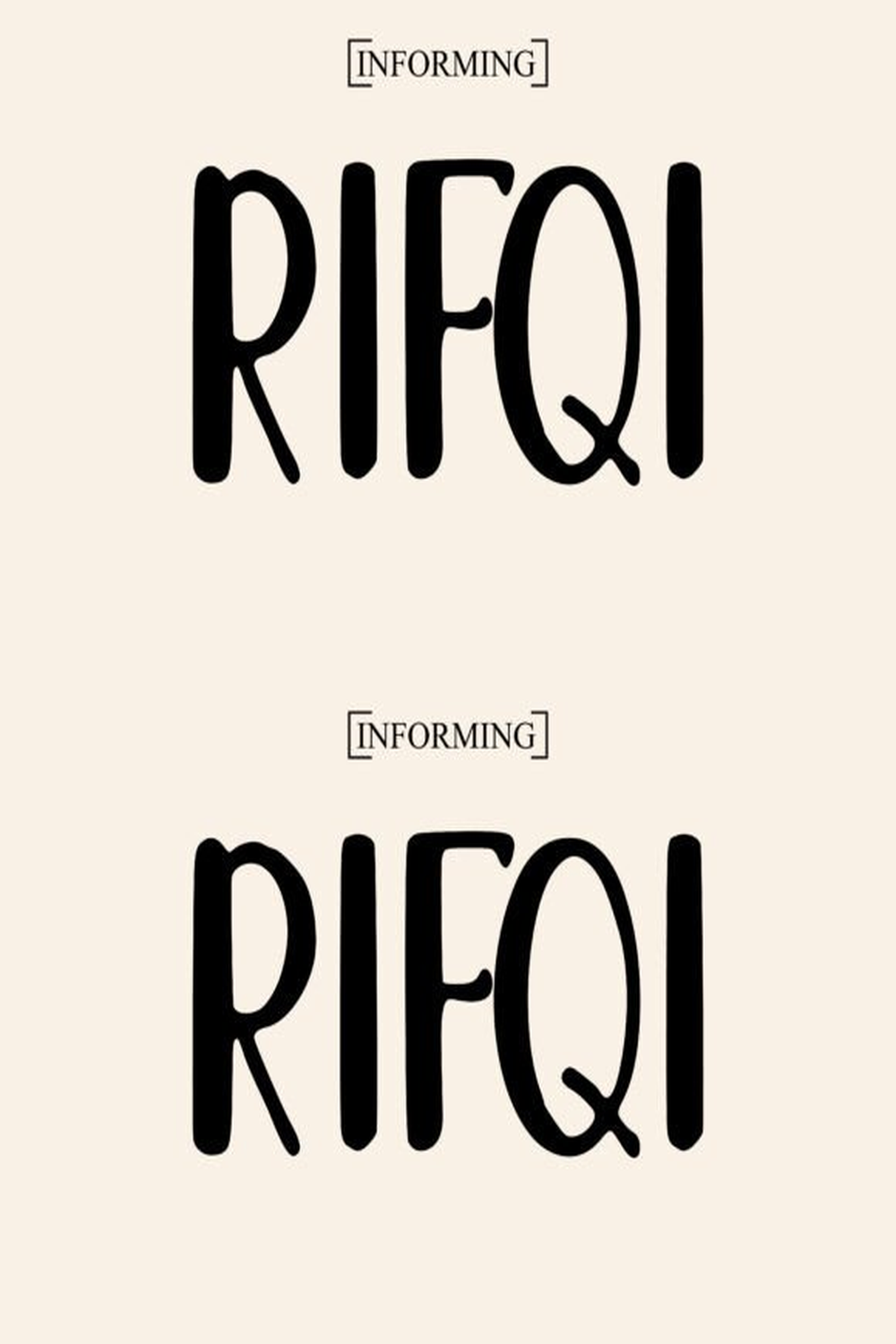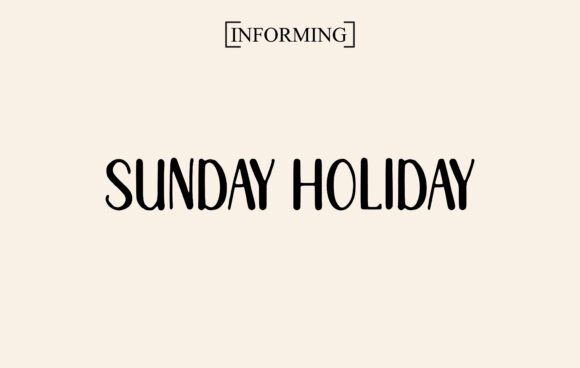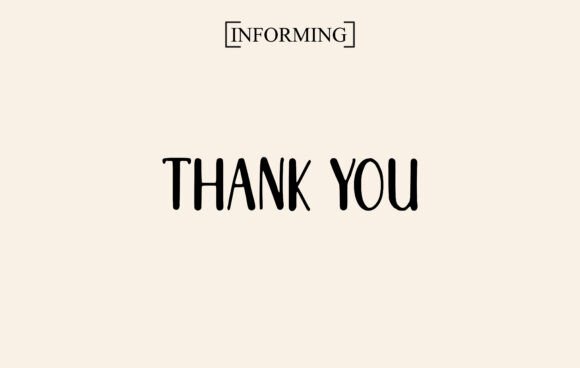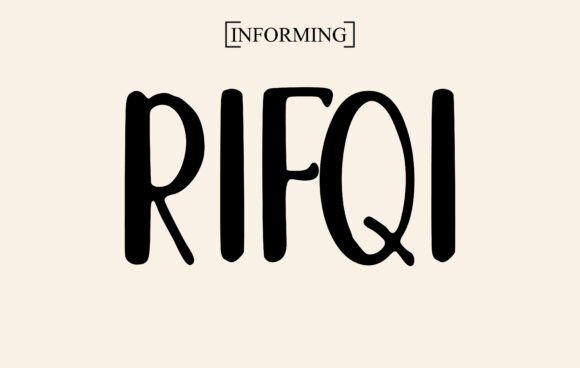
Rifqi Font
About the Rifqi Font
Introducing the Rifqi Font, a beautifully crafted typeface designed to elevate your creative projects. This font is designed to be a true favorite and it has the potential to take your creative ideas to the highest level
Rifqi’s strong, legible forms make it ideal for headlines, short text blocks in branding materials, and impactful signage. Its versatility extends to packaging design where clear communication is key, and it also works well for short-form social media posts. However, its weight might prove less effective for extensive body copy or UI elements requiring high readability across various sizes.
The font possesses a bold and friendly personality. It projects confidence without being overly aggressive. Therefore, it suits brands aiming for a modern yet approachable image, perhaps in the lifestyle, fashion, or technology sectors.
Pairing Rifqi with a clean sans-serif like Open Sans for body text creates a balanced contrast. For a more playful feel, consider a script font like Great Vibes for secondary elements; alternatively, a geometric sans-serif like Montserrat would offer a sophisticated, contemporary pairing.